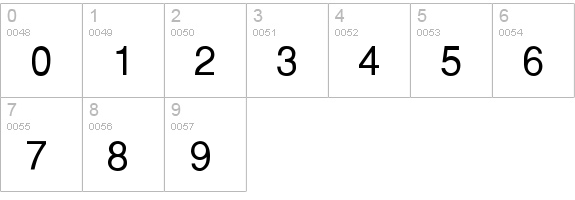
Partridge-Normal is the standard, neutral variant in the Partridge typeface family \xE2\x80\x94 well suited to general body text, paragraphs, and standard typographic work.
Introducing Partridge-Normal font, a visually stunning typeface that effortlessly combines elegance and versatility. Designed with meticulous attention to detail, this font is perfect for adding a touch of sophistication to a wide range of design projects. Partridge-Normal font features clean lines and balanced proportions, creating a harmonious and legible appearance that is pleasing to the eye. Its timeless appeal makes it suitable for both modern and classical designs, making it a versatile choice for various applications. With its extensive character set, Partridge-Normal font allows you to express your creativity with ease. Whether you need to create eye-catching headlines, elegant invitations, or professional-looking business materials, this font is sure to deliver exceptional results. One of the best features of Partridge-Normal font is that it is available for free download at FontsMarket.com. This means that you can easily access and use this remarkable font without any cost. With just a few clicks, you can enhance your designs with the timeless beauty and sophistication that Partridge-Normal font offers. Don't miss the opportunity to elevate your designs to new heights with Partridge-Normal font. Download it for free today at FontsMarket.com and unlock a world of endless creative possibilities.